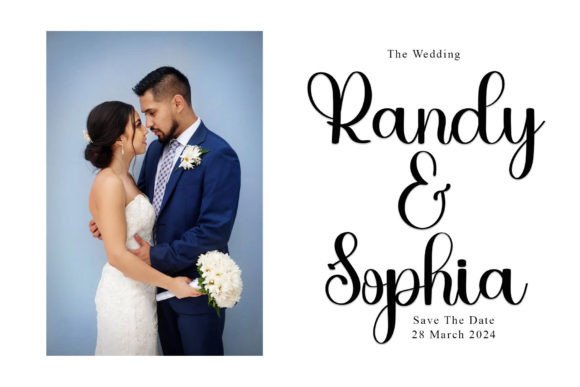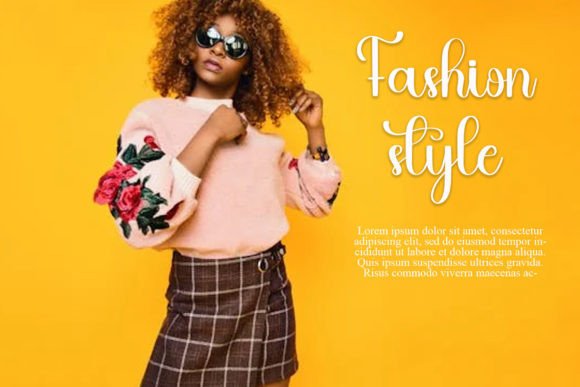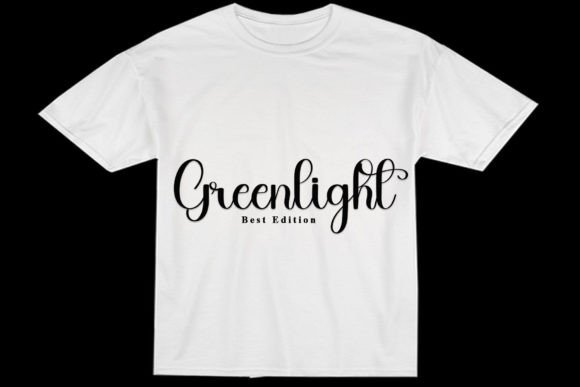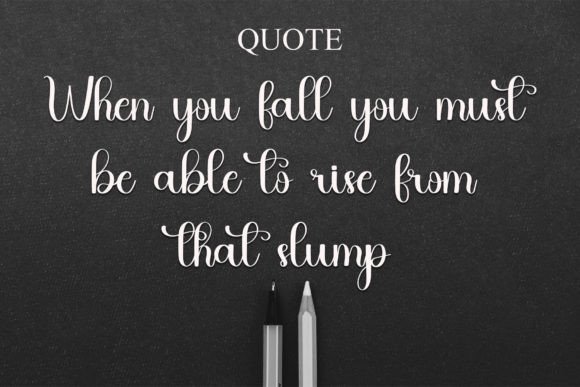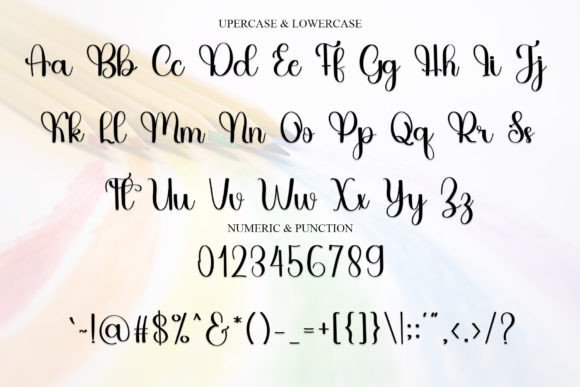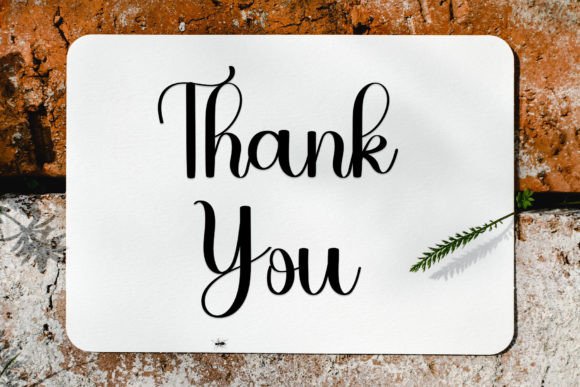
Introduction to Safary Font
Safary is a charming handwritten font imbued with a sense of freshness and casual elegance.
Its fluid strokes and organic lines evoke a laid-back vibe, making it perfect for various design projects Whether used for branding, invitations, or social media graphics, Safary adds a touch of warmth and personality.
Key Features of Safary Font